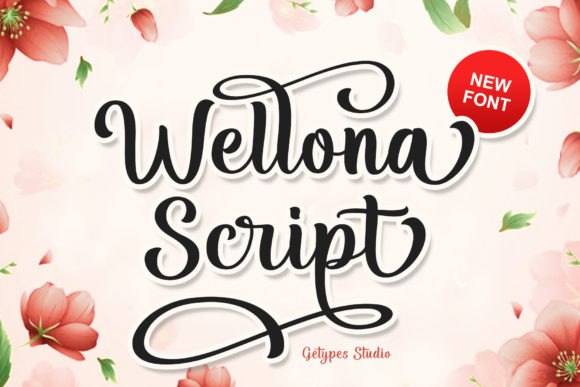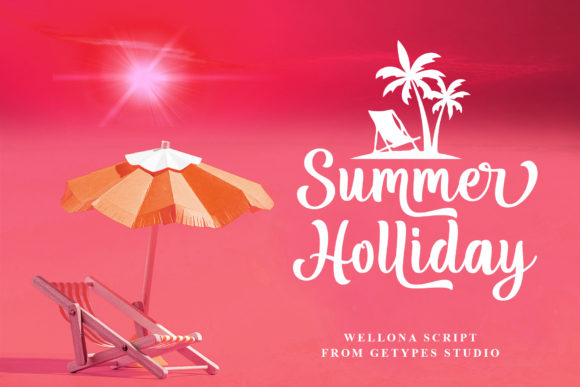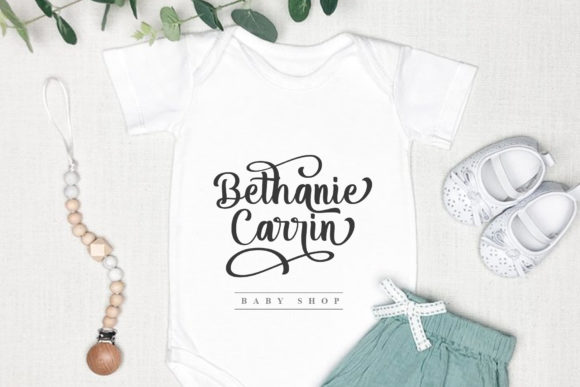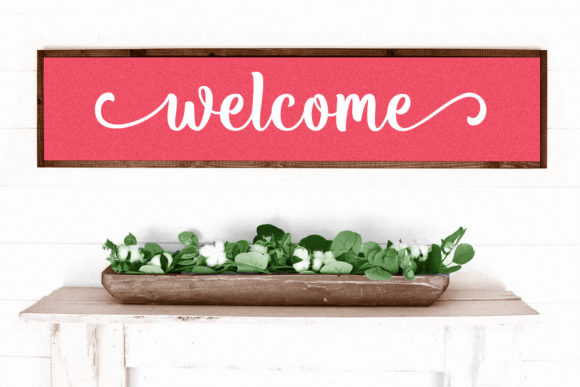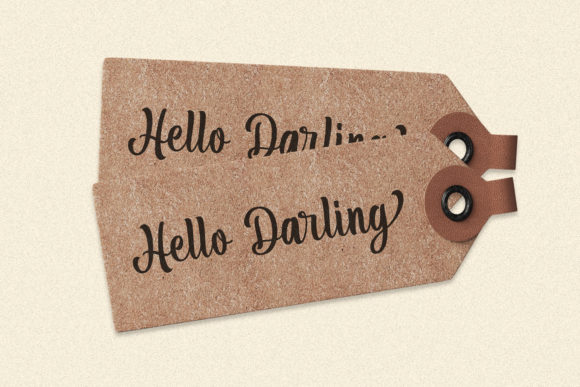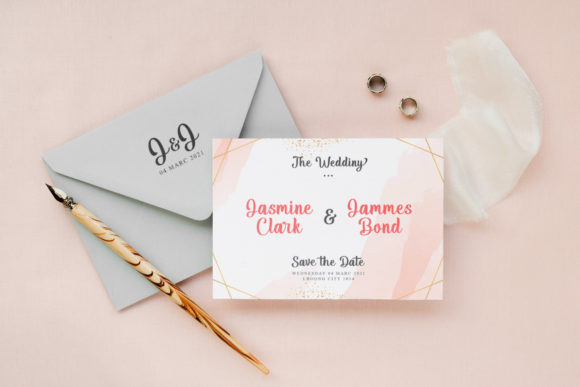
Wellona Script Font
About Wellona Script Font
Wellona Script is a lovely and delicate script font. Add this gorgeous font to each of your favorite designs. You will absolutely love the final outcome.